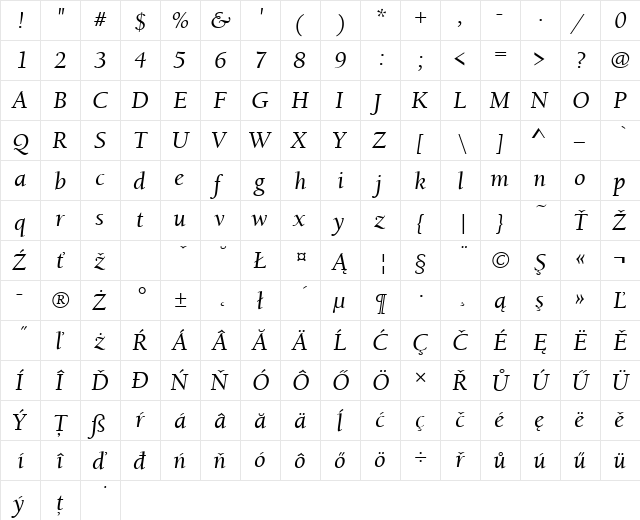
BerkeleyOldStyItcTEEMed Italic
Design Context for BerkeleyOldStyItcTEEMed Typeface
BerkeleyOldStyItcTEEMed is a composed and adaptable typeface that performs quietly and consistently across a wide range of design contexts. The dynamic lean of this cut emphasises speed and emphasis in any layout.
Pro Tip: Use BerkeleyOldStyItcTEEMed for emphasis, pull quotes, and subheadings where its slanted energy can add rhythm to the layout.